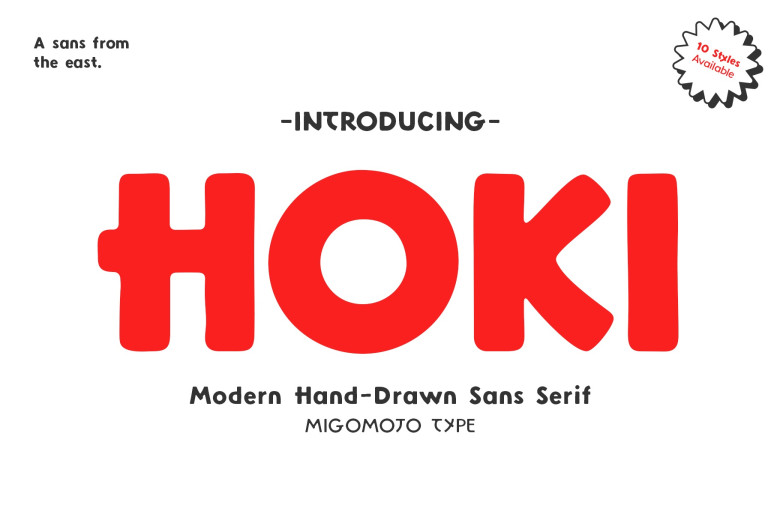
Hoki Font Family
Hoki can be described as a modern hand drawn sans-serif font designed from scratch to capture the vibe of asian typography. Raw, open, and spirited, Hoki expressed East Asian art and infuse it with a creative and dynamic interface style.
Hoki Sans Serif Font Family